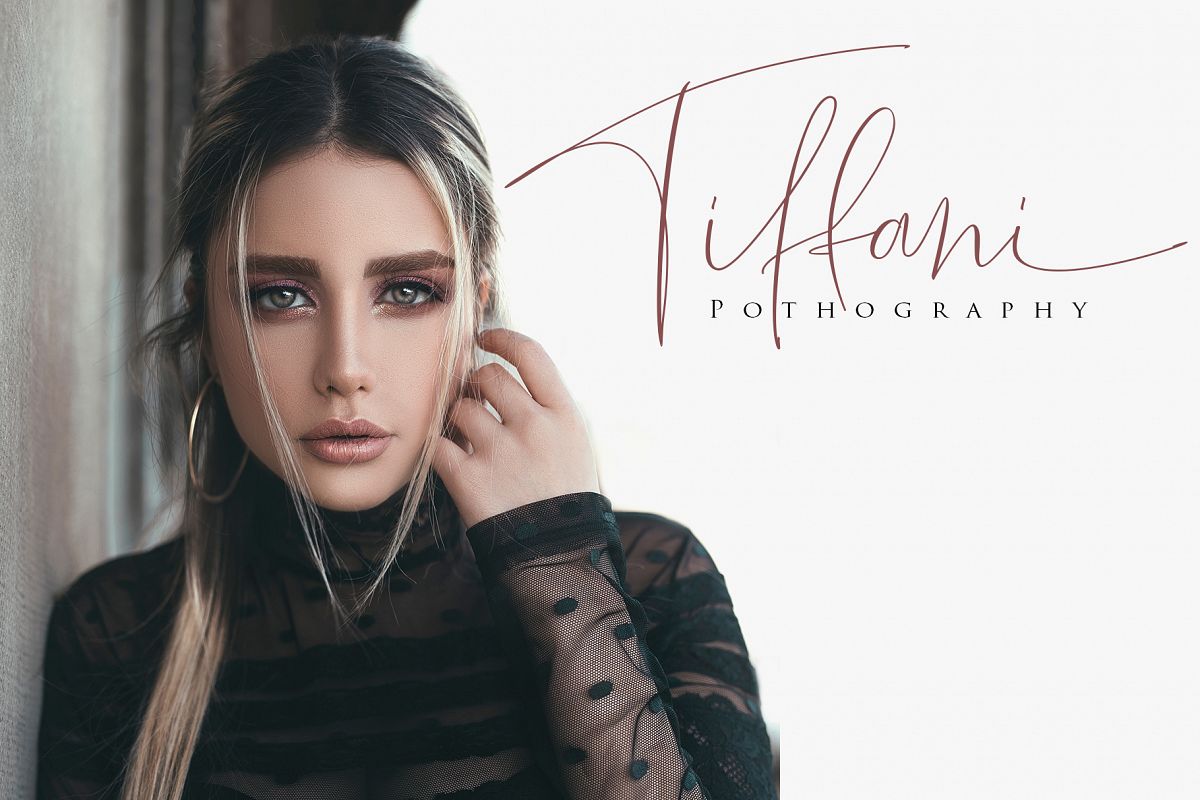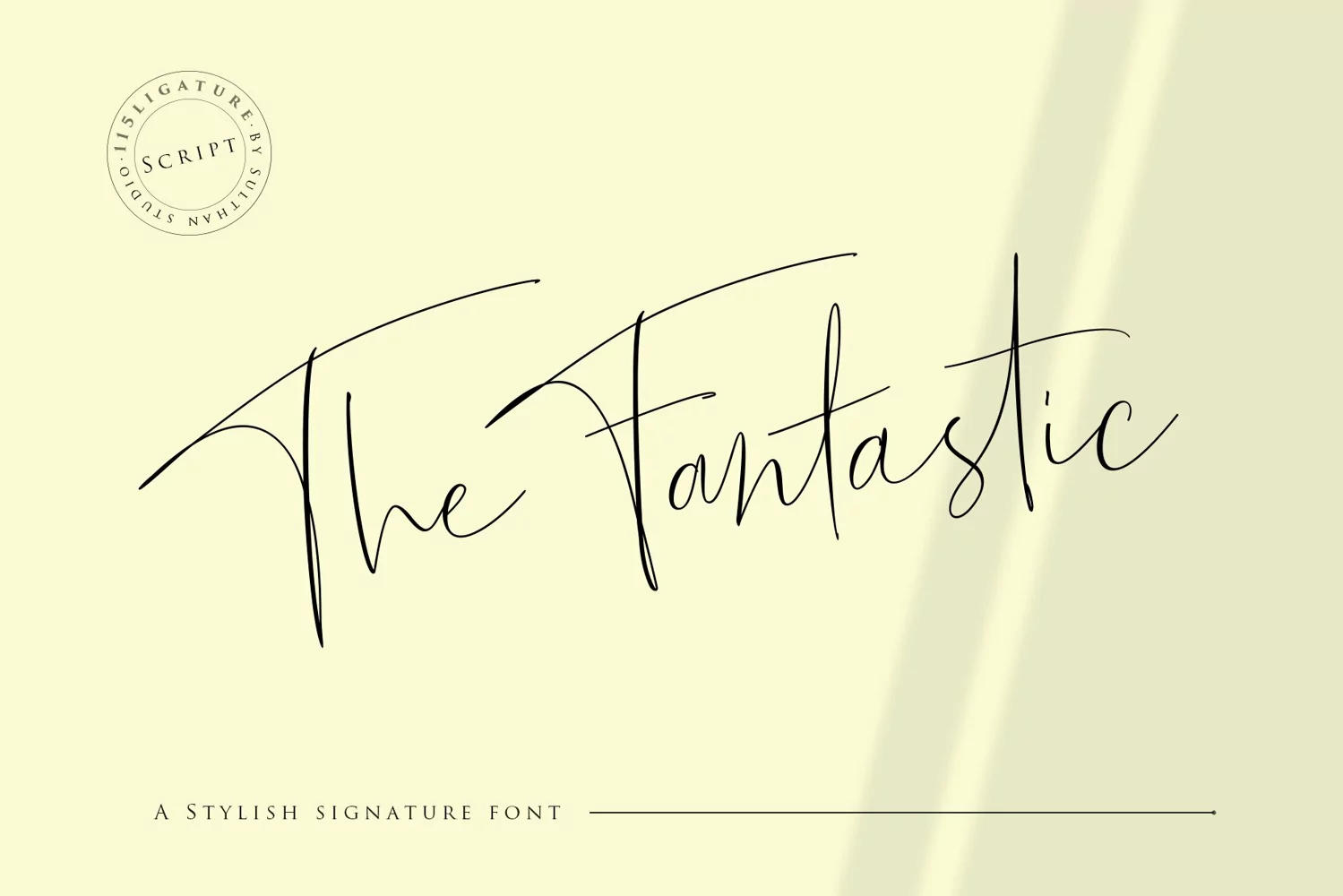
Introducing
The Fantastic Signature a new fresh & modern script with a handmade calligraphy style, decorative characters and a dancing baseline! So beautiful on invitation like greeting cards, branding materials, business cards, quotes, posters, and more!!The Fantastic Signature, The alternative characters were divided into several Open Type features such as Stylistic Alternates, and Ligature.
The Fantastic Signature Features :
Uppercase & Lowercase International Languange & Symbols Support Punctuation & Number PUA Unicode Range Standard Ligatures Discretionary Ligatures Stylistic Alternates Stylistic Set 01 Character